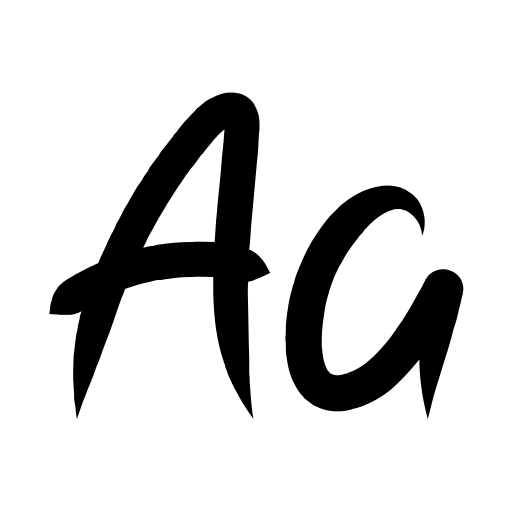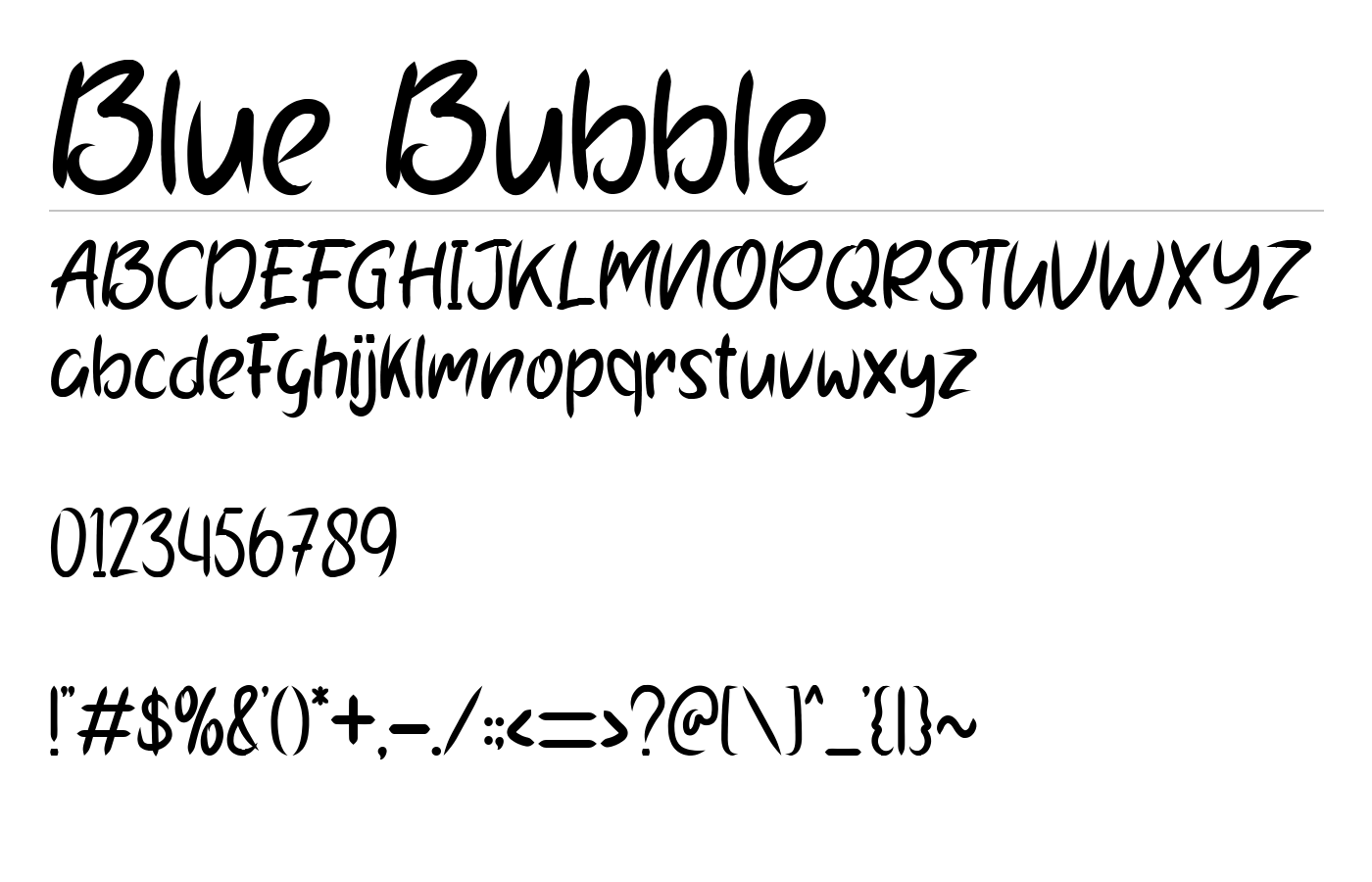
Blue Bubble is a playful, casual handwritten sans serif font with a lively, bouncy rhythm and smooth, rounded strokes that make it feel friendly and approachable. Its uneven letterforms and informal style work well for creative projects, kids’ materials, and branding that seeks a fun, personal touch. This font shines in logos, posters, and headlines where a warm, inviting vibe is desired.
Blue Bubble Font
About Blue Bubble Font